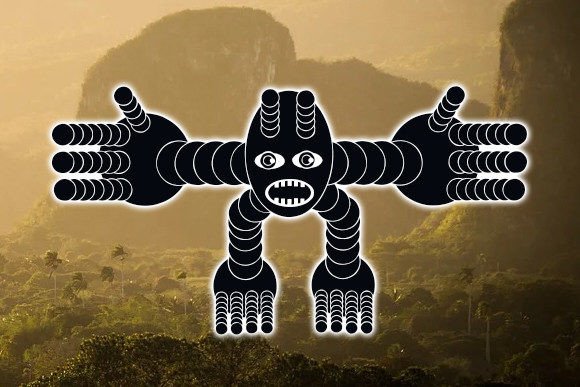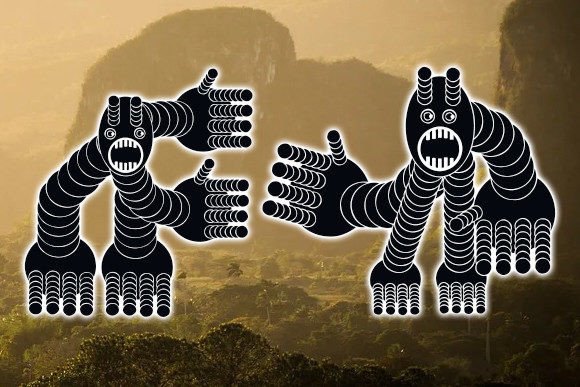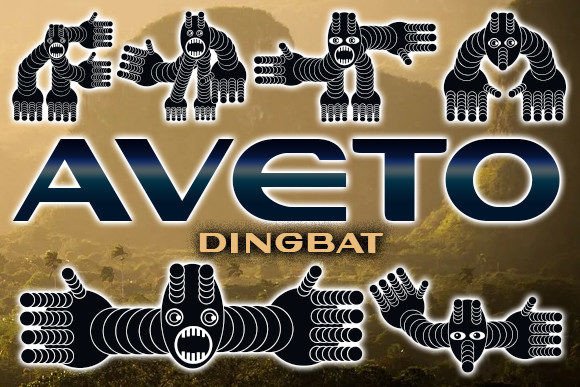
Introducing Aveto Font: The Ultimate Dingbat for Stylish Designs
Are you tired of using the same old fonts for your designs? Look no further than Aveto Font, a striking and bold dingbat that will take your creations to the next level. This versatile font is perfect for designers and crafters who want to add a touch of style and sophistication to their work.
What is Aveto Font?
Aveto Font is a unique dingbat font that features a range of bold and striking symbols, shapes, and icons. Its distinctive design makes it perfect for adding visual interest to a wide range of projects, from posters and flyers to t-shirts and other merchandise.
Key Features of Aveto Font
- Bold and striking design: Aveto Font features a bold and eye-catching design that will make your creations stand out from the crowd.
- Versatile: This font can be used for a wide range of projects, from posters and flyers to t-shirts and other merchandise.
- High-quality: This font is designed to high-quality standards, ensuring that it looks great in any design.
Design Ideas Using Aveto Font
Aveto Font is a versatile dingbat that can be used in a wide range of designs. Here are a few ideas to get you started:
- Posters: Use Aveto Font to create eye-catching posters for events, promotions, or advertising campaigns.
- Flyers: Add a touch of style to your flyers with Aveto Font, perfect for promoting products, services, or events.
- T-shirts: Create stylish and bold t-shirt designs using Aveto Font, perfect for fashion brands or promotional merchandise.
- Social media graphics: Use Aveto Font to create engaging social media graphics, perfect for Facebook, Instagram, Twitter, and more.
Benefits of Using Aveto Font
There are many benefits to using Aveto Font in your designs. Here are just a few:
- Adds visual interest: Aveto Font adds a touch of style and sophistication to your designs, making them more visually appealing.
- Versatile: This font can be used in a wide range of designs, making it a great addition to any design library.
- High-quality: This font is designed to high-quality standards, ensuring that it looks great in any design.